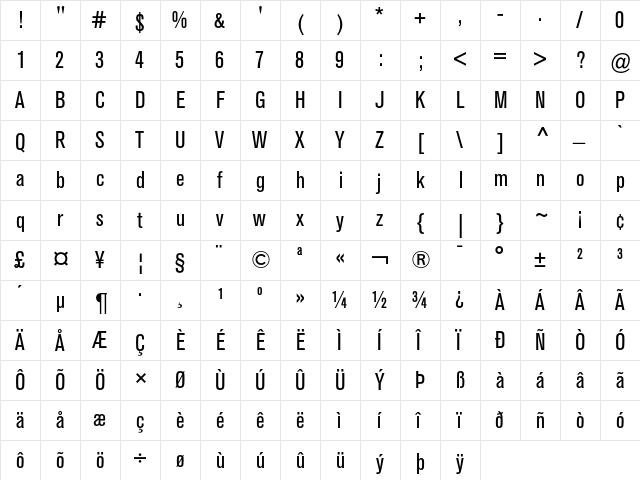
Berthold Akzidenz Grotesk BE Condensed Font Preview
Design Context for Berthold Akzidenz Grotesk BE Typeface
Berthold Akzidenz Grotesk BE takes a clean, functional approach — its unadorned letterforms prioritise legibility and work reliably across screen and print environments. The condensed width makes it efficient for tight spaces without sacrificing legibility.
Font Pairing: Works well alongside a characterful serif or display font that can carry the expressive load while Berthold Akzidenz Grotesk BE handles the functional copy.
Pro Tip: Use Berthold Akzidenz Grotesk BE tightly set in headlines and banners — its condensed proportions make it ideal for maximum impact in minimum horizontal space.